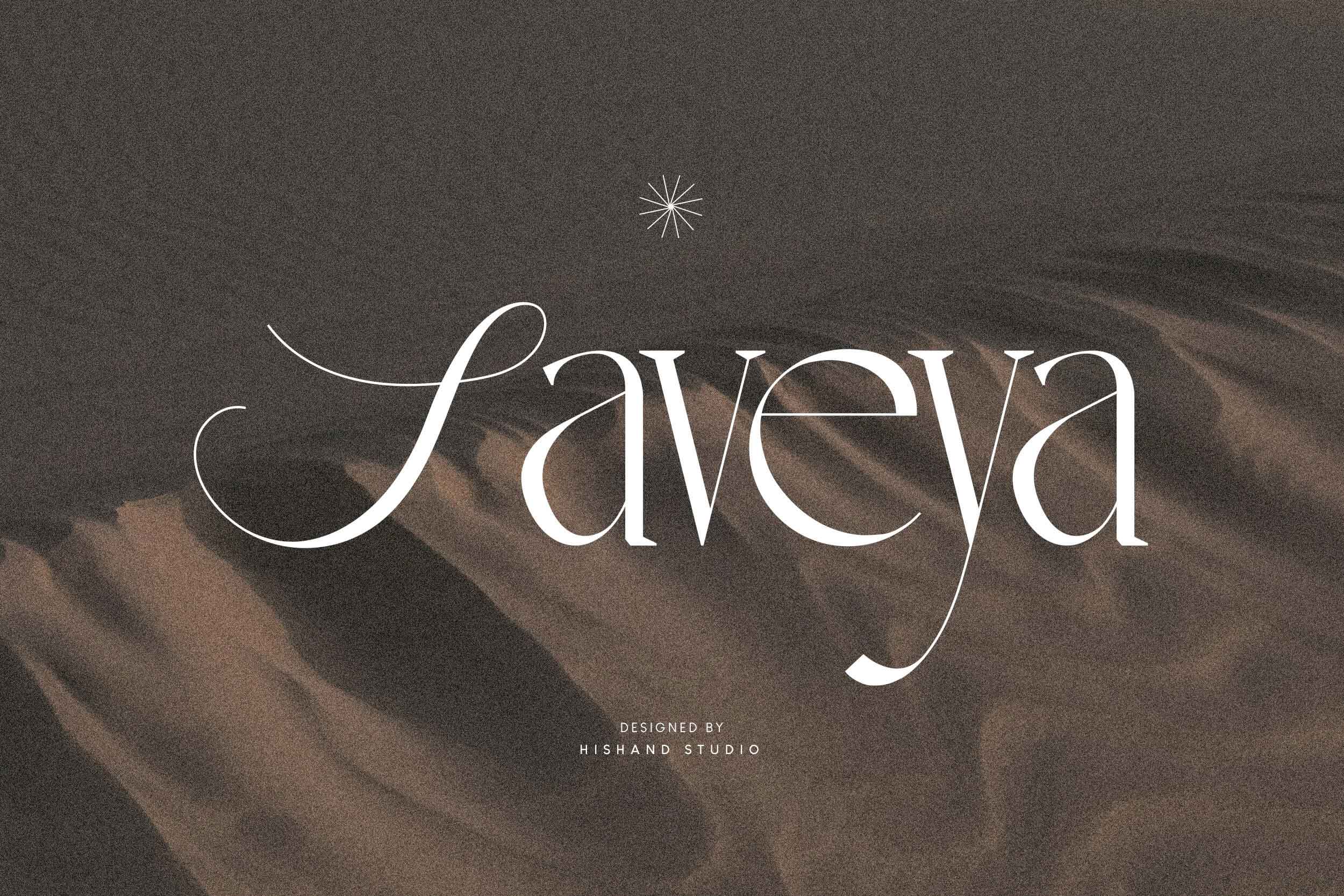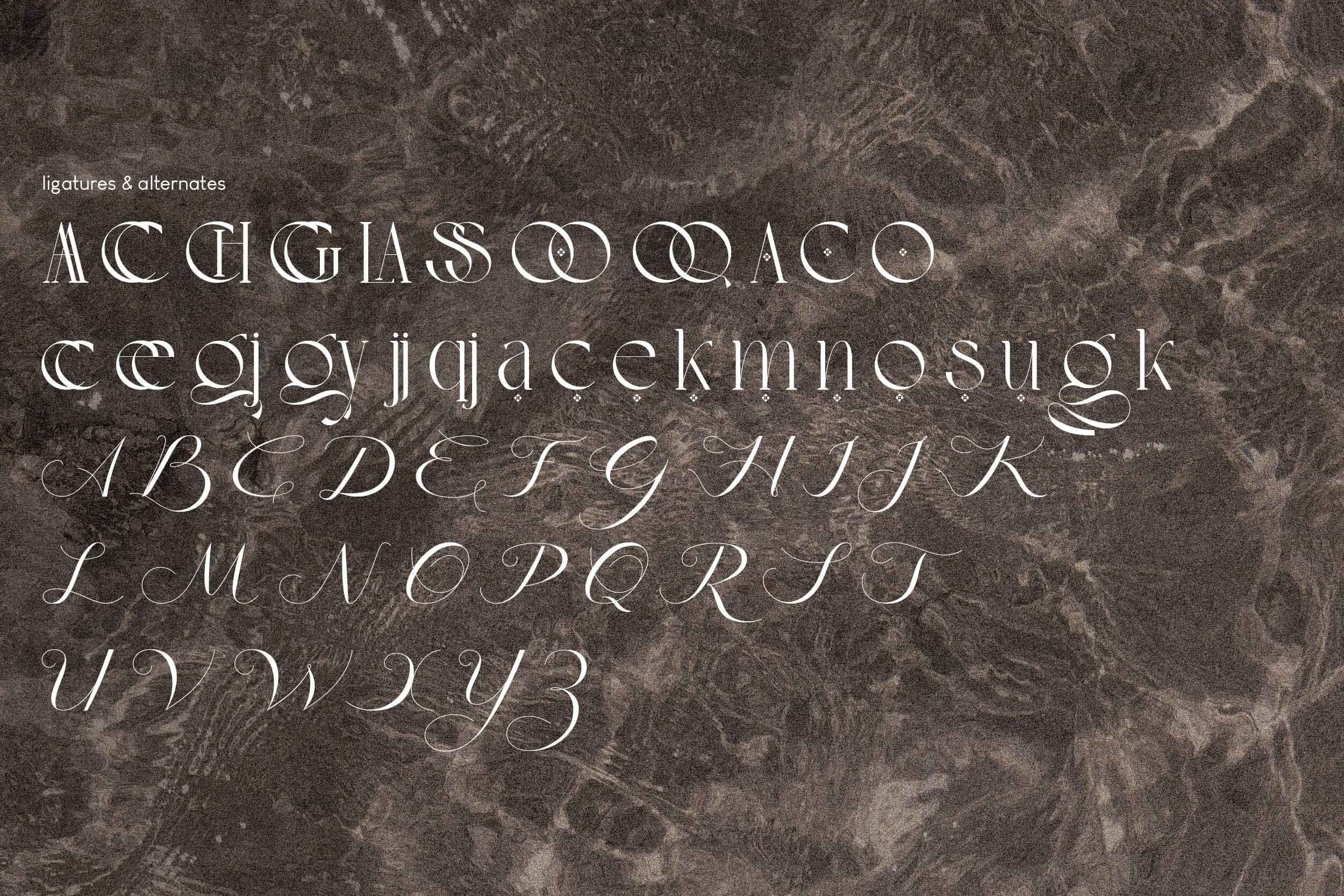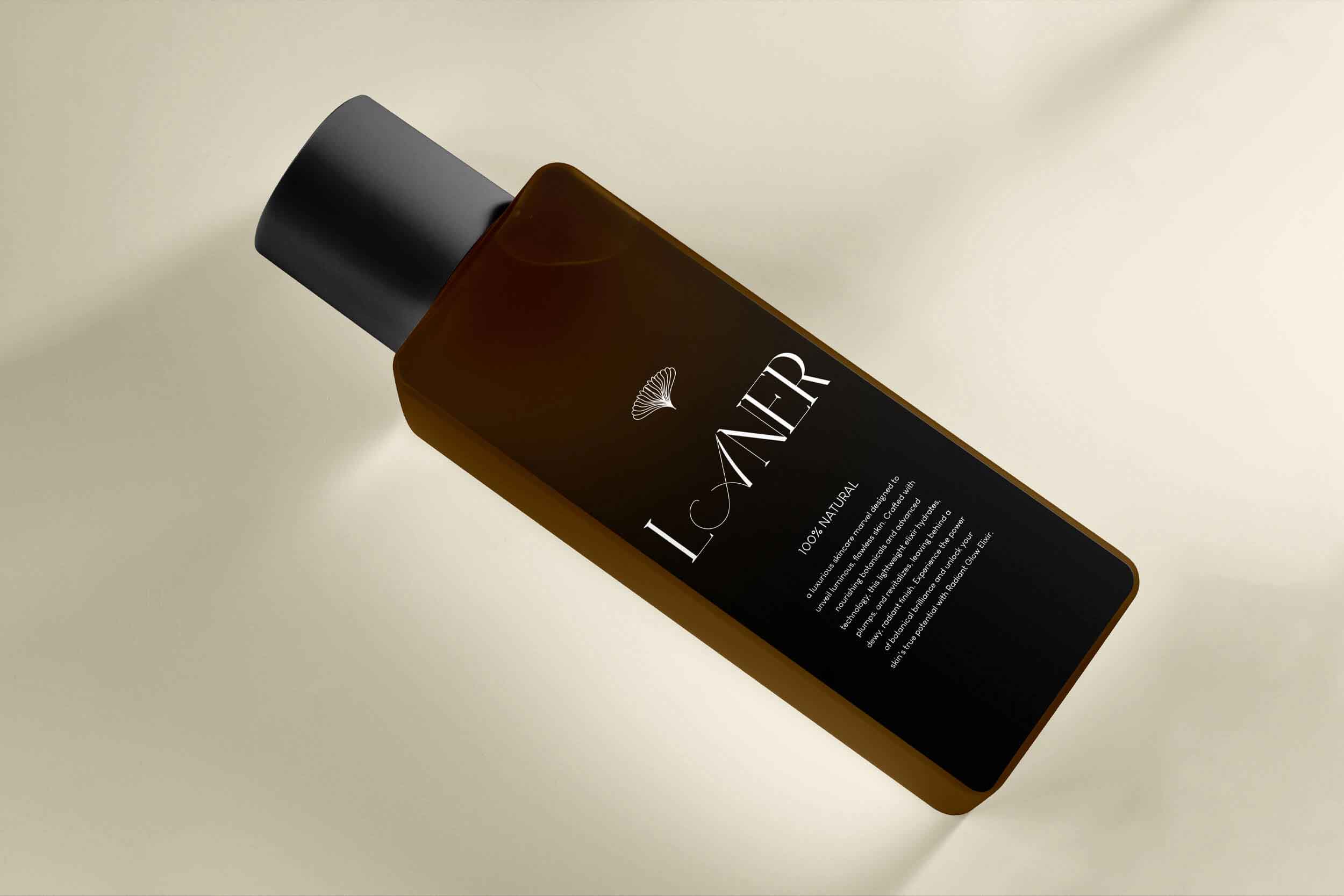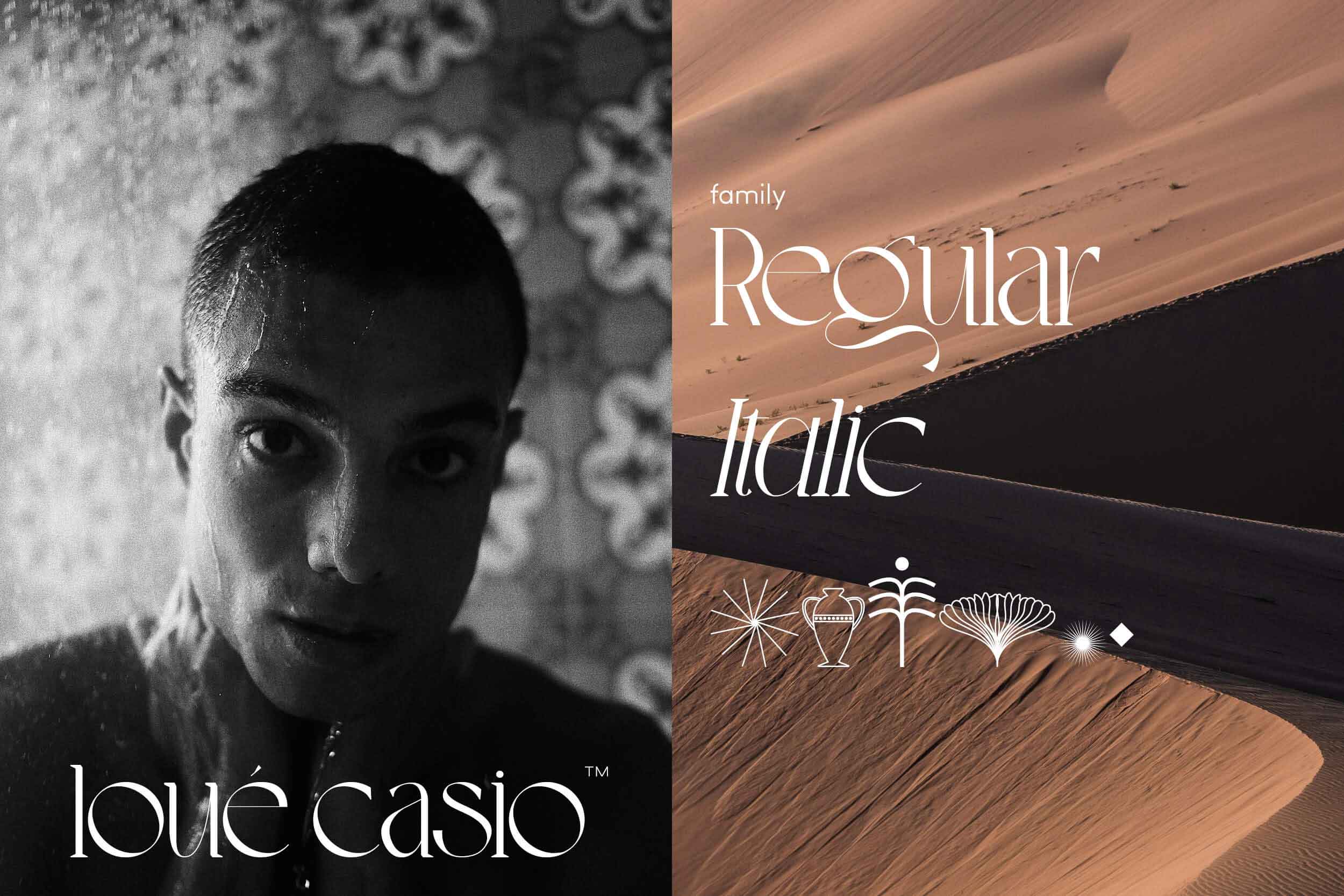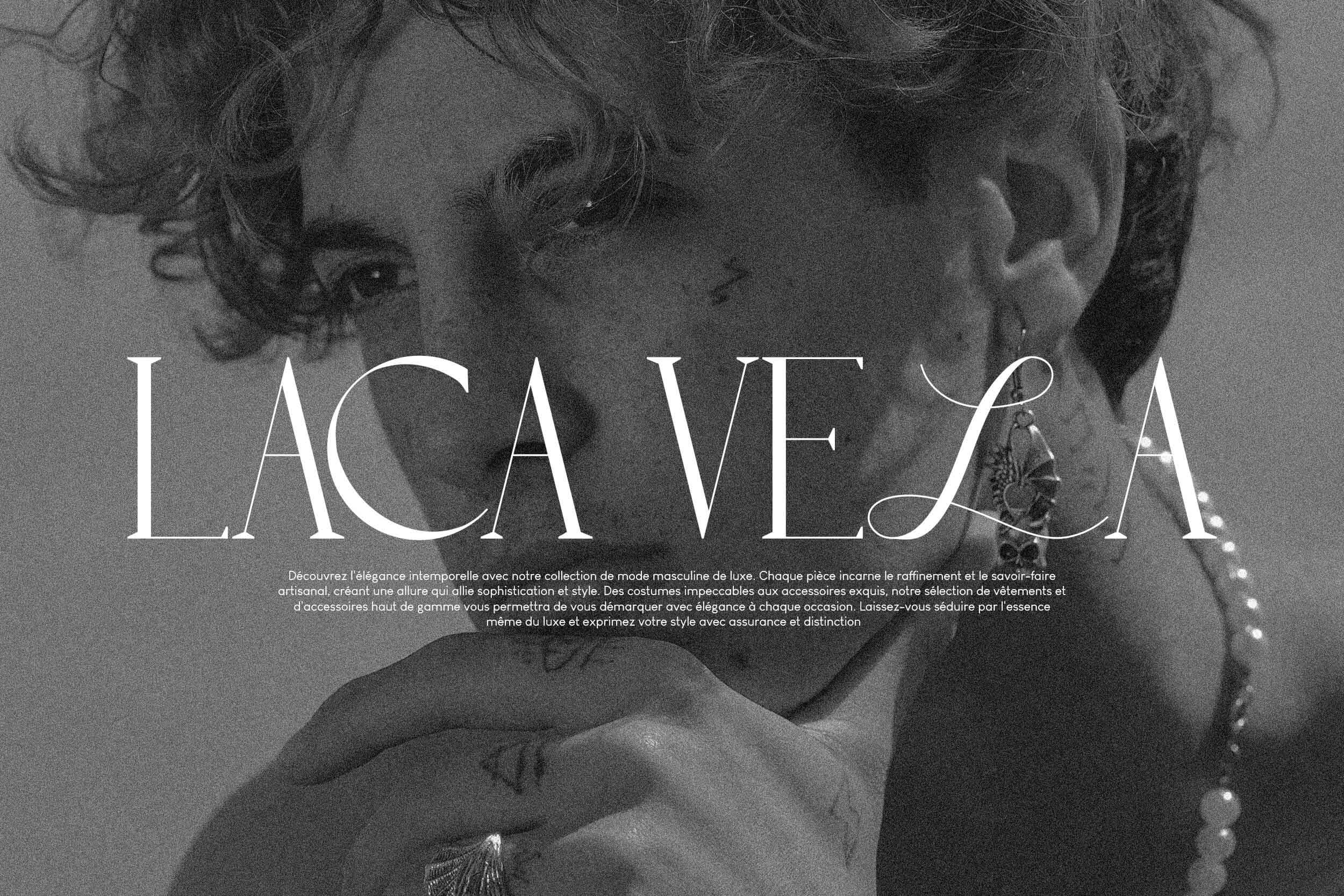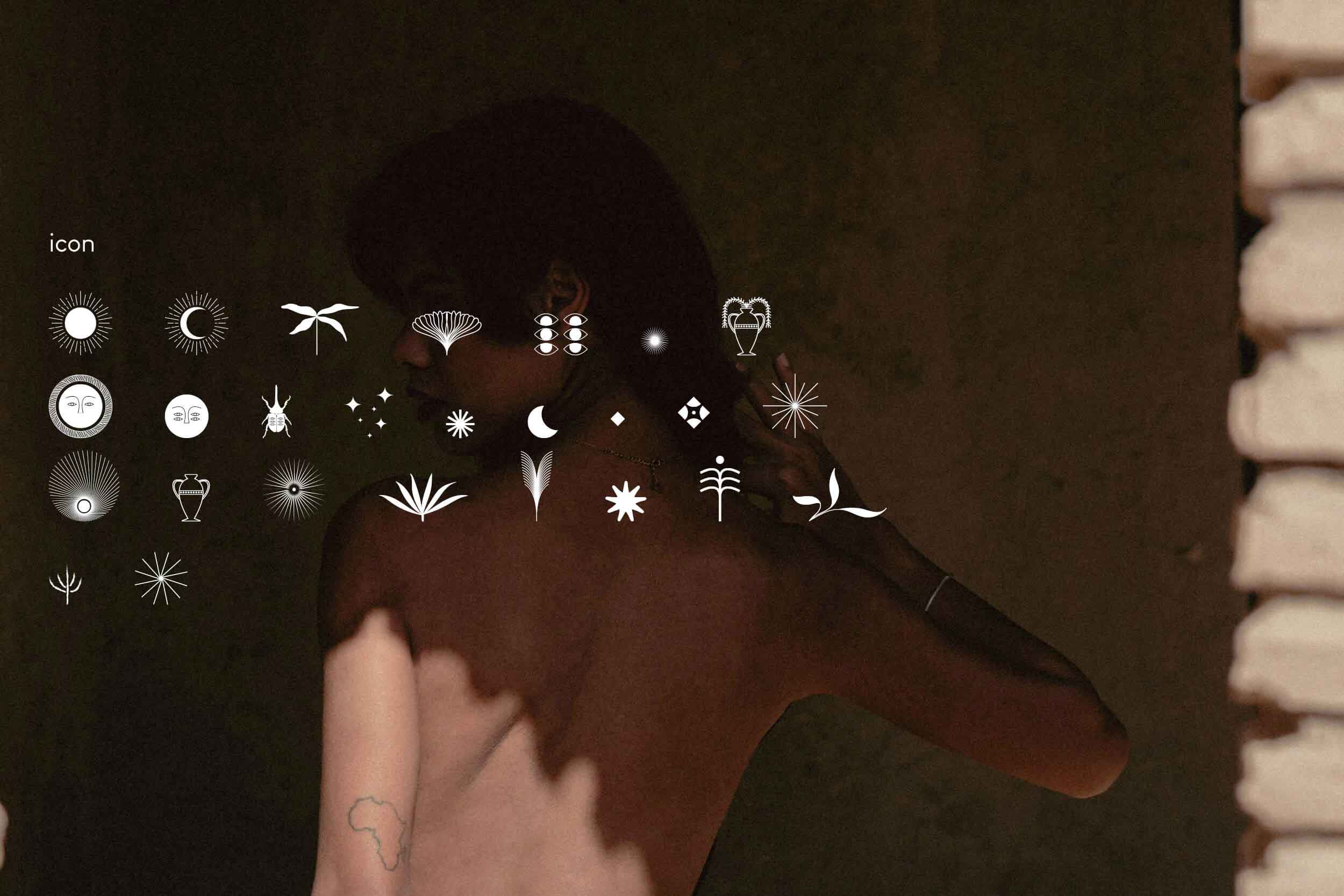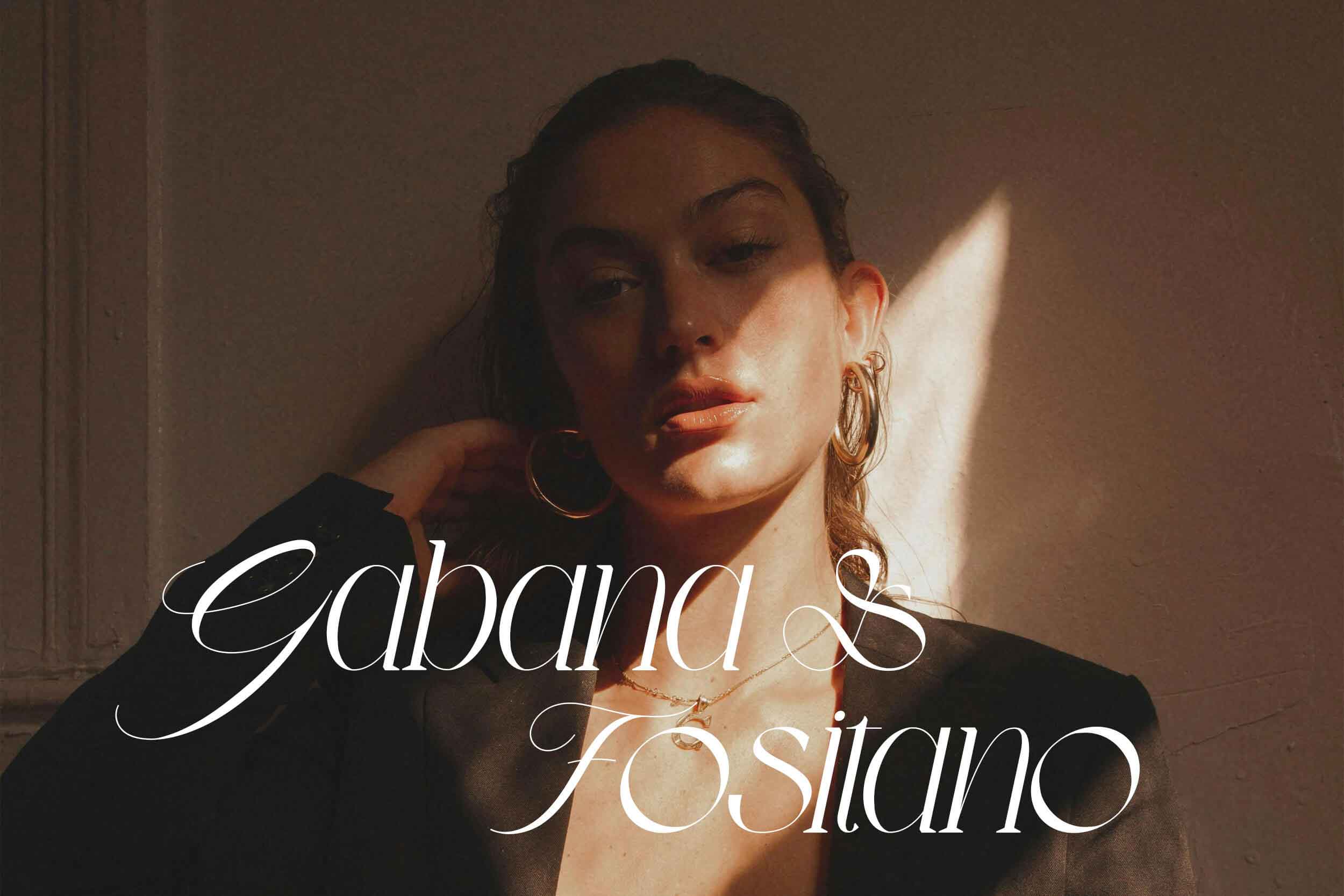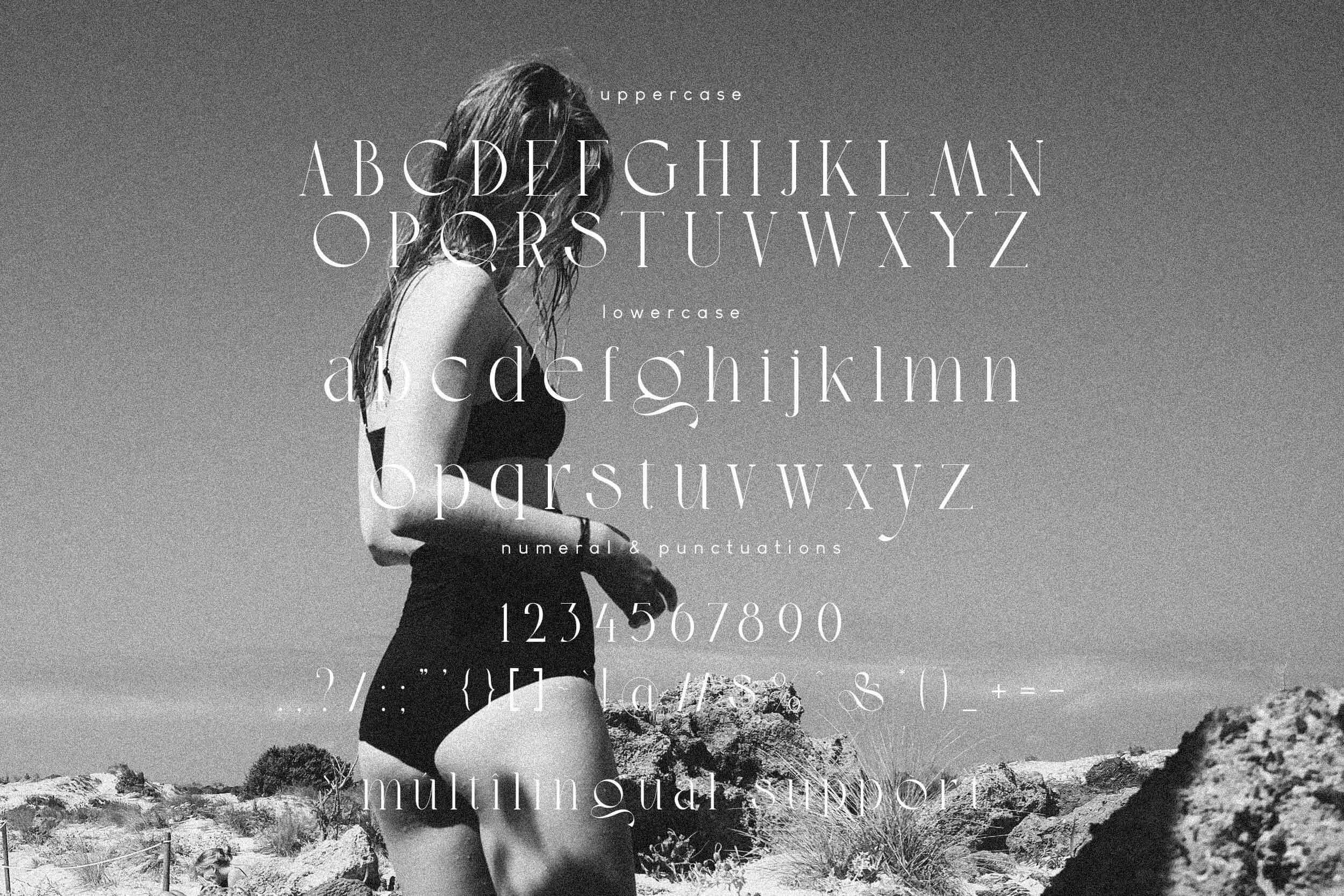
Saveya is a blend of script and serif fonts exuding elegance and luxury. Perfect for logos, branding, invitations, and social media posts, Saveya adds sophistication to any project. With its fluid script and subtle serifs, it strikes a balance between modern allure and classic refinement. Elevate your designs with Saveya and make a lasting impression effortlessly. Complete with
- ligatures
- alternates
- regular
- Italic
- icon
- kerning
- multilingual support